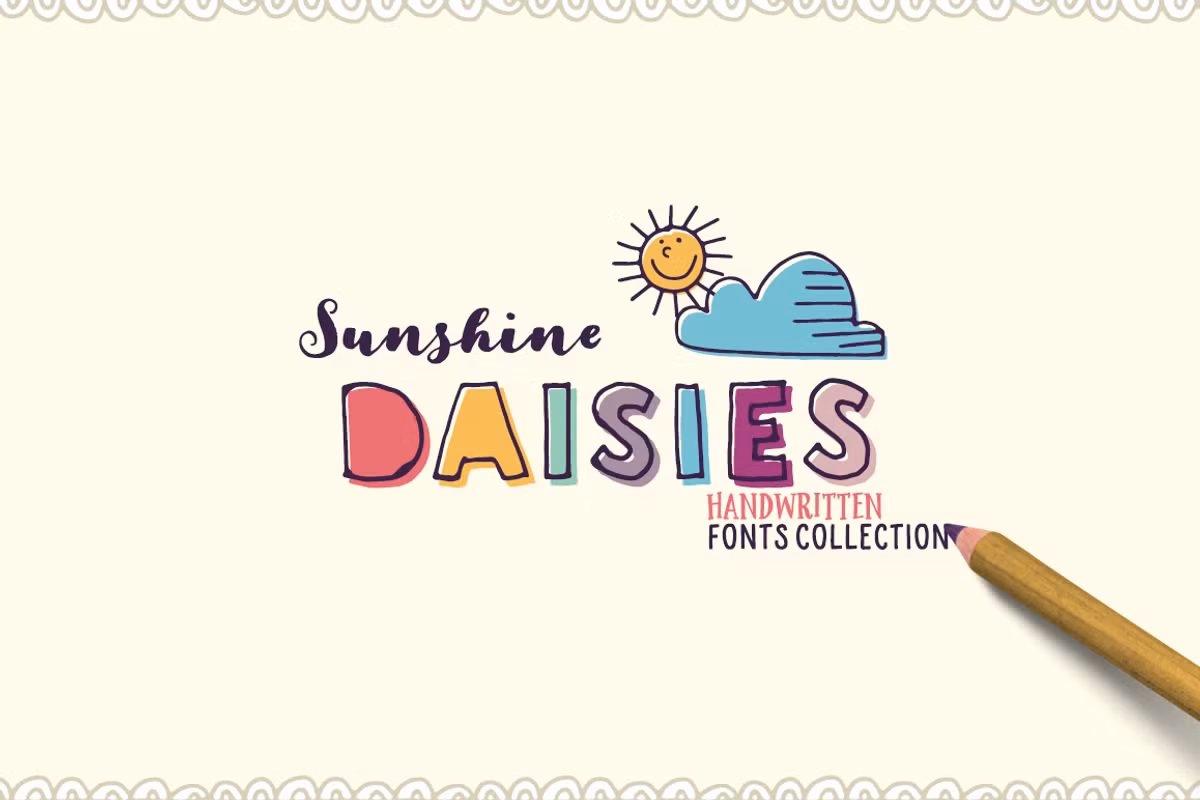
Sunshine Daisies Font Collection Free Download
Sunshine Daisies Font Collection Free Download is a delightful and whimsical set of fonts designed to bring a cheerful, lighthearted touch to your creative projects. With a mix of playful scripts, charming serifs, and quirky handwritten styles, this collection is perfect for branding, greeting cards, invitations, social media graphics, and any project that requires a fun, friendly vibe.
The Sunshine Daisies collection offers versatility with fonts that work beautifully together or can be used individually for a cohesive, joyful aesthetic. Whether you're crafting a logo, a product label, or seasonal designs, this bundle provides everything you need to add personality and charm to your typography.